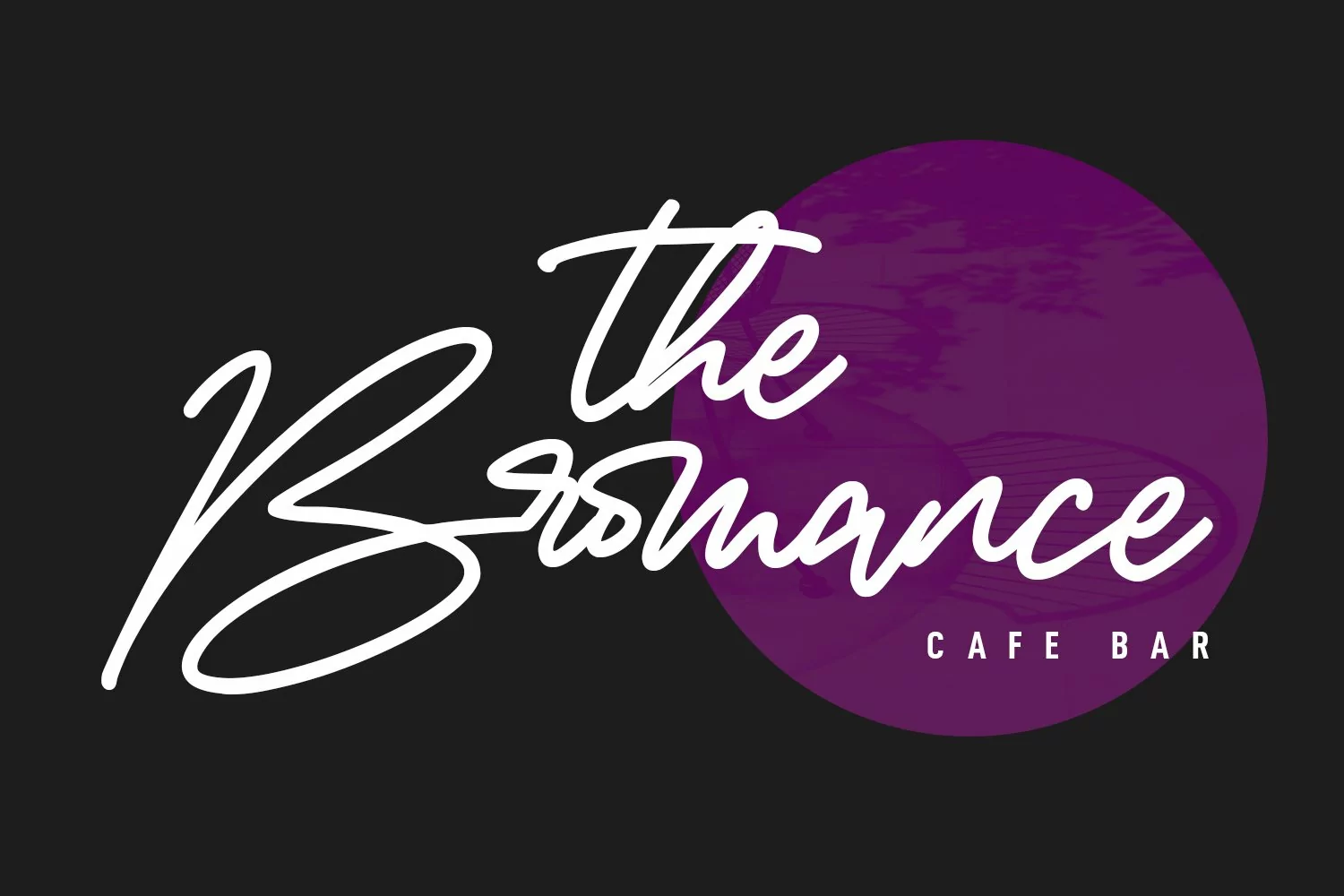
"Brominates" is an expressive signature font. With medium mono-line stroke, fun character with a bit of ligaturess. To give you an extra creative work. "Brominates" font support multilingual more than 100+ language. This font is good for logo design, Social media, Movie Titles, Books Titles, a short text even a long text letter and good for your secondary text font with sans or serif. Make a stunning work with "Brominates" font.